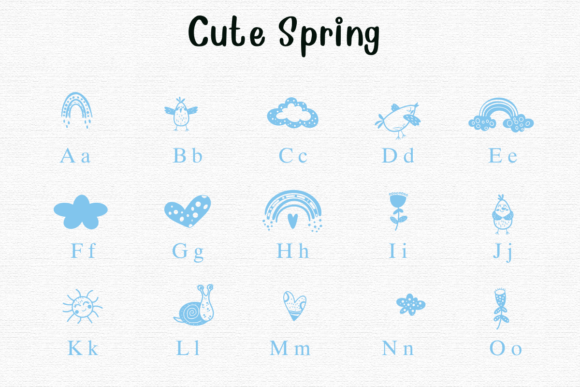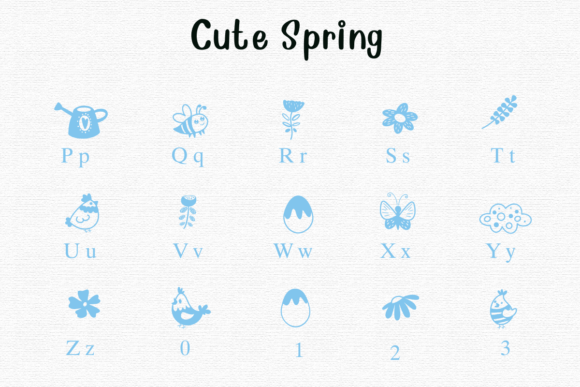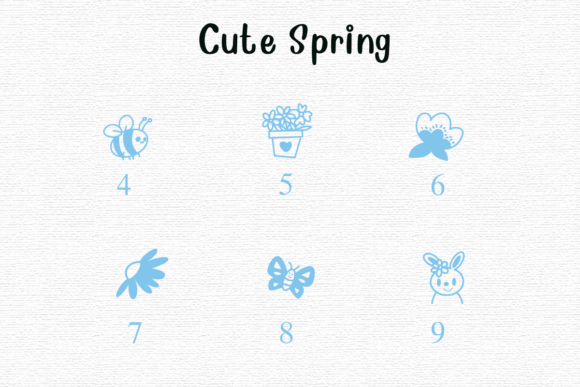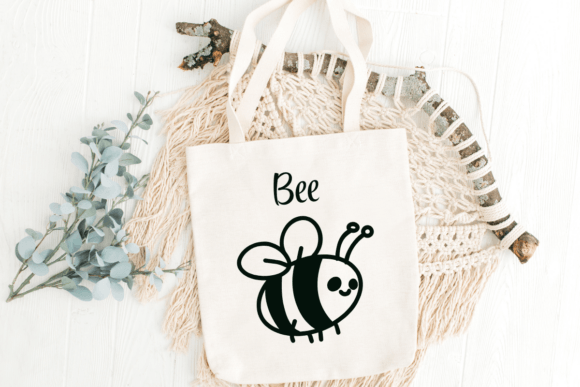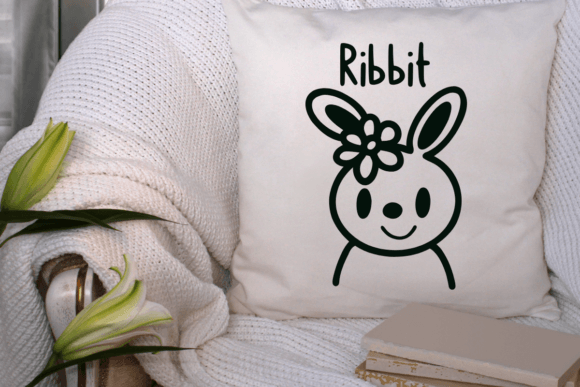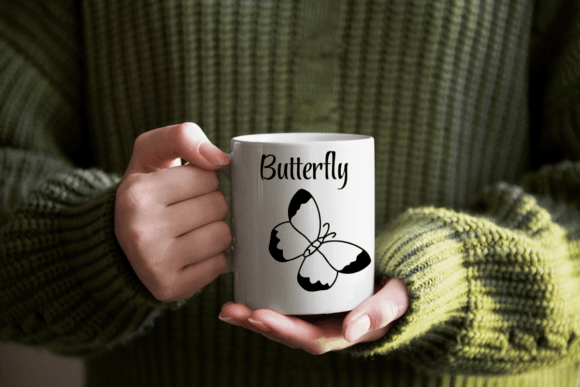
Celebrating the Arrival of Spring with Cute Spring Font
As the snow melts away and the sun shines brighter, many of us feel the urge to bring some color and joy into our creative projects. You’re sitting at your desk, surrounded by scraps of paper, glue, and glitter, trying to decide on the perfect design for your friend’s baby shower invitation. Suddenly, a spark of inspiration hits – what if you could add some whimsical spring elements to make it truly special?
That’s where Cute Spring Font comes in – a delightful dingbat font featuring spring flowers and adorable animals that will bring your designs to life. This charming font is perfect for wedding invitations, DIY crafts, decorations, logos, and any other creative project that needs a touch of spring magic. With Cute Spring Font, you’ll have the tools to create unique and eye-catching designs that will make your projects stand out.
- Font Family: Cute Spring Font is a unique, hand-drawn font family designed to evoke a sense of spring and new beginnings.
- Unique Characteristics: The font features playful, whimsical letterforms with intricate details, perfect for creating eye-catching designs and branding materials.
Cute Spring Font Review
As a designer, I was excited to try out the “Cute Spring Font”. Overall, I’d say it’s a solid choice for projects that require a playful and whimsical feel. ✨ Here are some things that really work well:
- Unique charm: The font has a distinct, hand-drawn quality that sets it apart from more generic sans-serif fonts.
- Wide character set: The font includes a wide range of characters, including punctuation and symbols, which makes it a great choice for everyday use.
- Highly customizable: The font can be easily customized to fit your brand’s color scheme and style.
However, there are a few limitations to keep in mind:
- Readability at small sizes: At very small font sizes, the font can become difficult to read due to its complex letterforms.
- Limited versatility: While the font is great for playful projects, it may not be the best choice for more formal or professional work.
Overall, I’d give the “Cute Spring Font” 4 out of 5 stars. It’s a great choice for projects that require a lighthearted, playful feel, but may not be the best choice for more serious or professional work. ⚠️
For the best results, use Cute Spring Font for designs that require a playful and whimsical touch, such as:
- Birthday invitations
- Wedding stationery
- Children’s party decorations